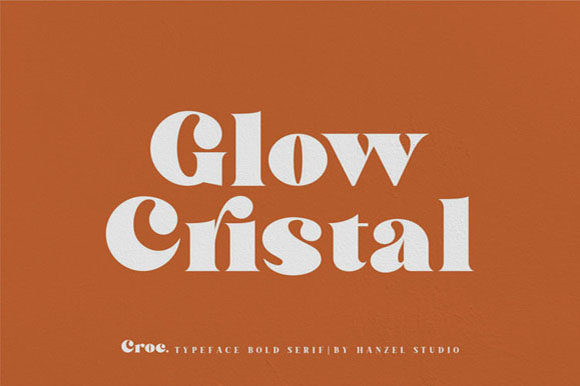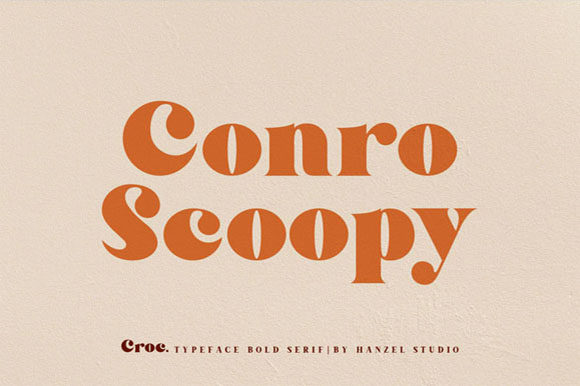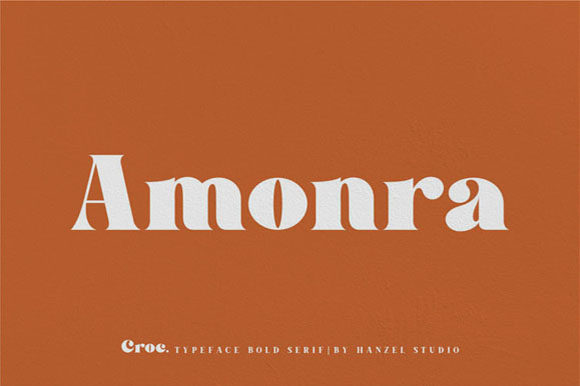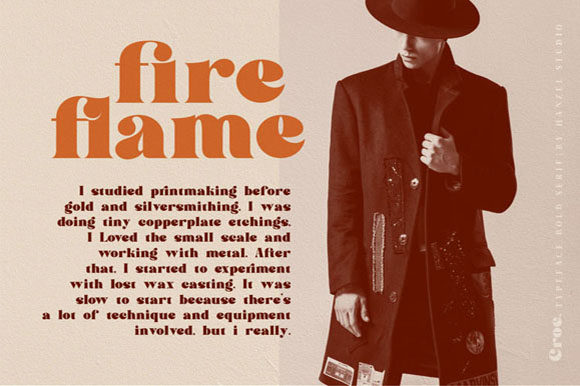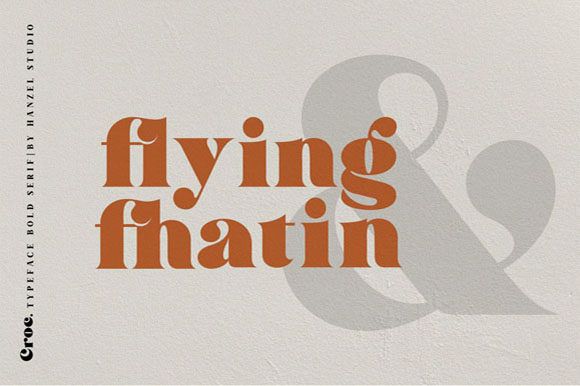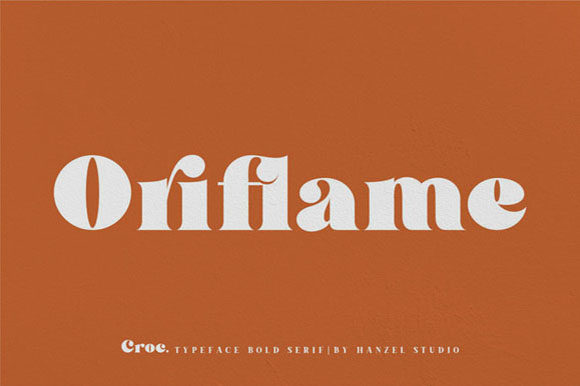
The Croc Font: A Bold and Playful Serif for Your Design Projects
I’ll never forget the time I was working on a branding project for a trendy boutique hotel. I had spent hours scouring font libraries and trying out different combinations, but nothing seemed quite right. That was until I stumbled upon the Croc font. Its unique blend of retro and modern vibes instantly caught my eye, and I knew I had found the perfect fit. In this article, I’ll share my love for the Croc font, its features, and how to make the most of it in your design projects.
An Honest Review of Croc Font
What I Love About Croc Font
- ✨ Unique Sharp Serifs: The Croc font’s sharp serifs give it a bold, mid-century architectural vibe that’s perfect for making a statement.
- ✅ Versatile: Whether you’re designing a logo, editorial content, or a website, Croc font adapts seamlessly to different contexts.
- 💡 Retro-Meets-Modern Aesthetic: The font’s retro flair combined with its modern sensibilities makes it a great choice for designers looking for something fresh yet nostalgic.
While the Croc font is incredibly versatile, there are a few things to keep in mind:
- ⚠️ Legibility at Small Sizes: Like many serif fonts, Croc can get a bit tricky to read at very small sizes. It’s best used at larger sizes where its unique features can shine.
- 🤔 Overuse of Emphasis: The font’s bold nature means that overusing it can make your design feel overwhelming. Balance is key.
The Backstory of Croc Font
The Croc font was designed with the intention of blending the nostalgia of mid-century design with the boldness of modern typography. Inspired by the architectural marvels of the 1950s and 60s, the creator aimed to craft a font that would stand out in any design project while still maintaining readability and elegance.
Q: Is Croc Font Suitable for Body Text?
A: While Croc font can be used for body text, it’s most effective at larger sizes. For smaller text, consider pairing it with a sans-serif font for better readability.
Q: How Does Croc Font Compare to Traditional Serif Fonts?
A: Croc font stands out from traditional serif fonts due to its sharp serifs and thin strokes, giving it a unique, architectural feel that’s both retro and modern.